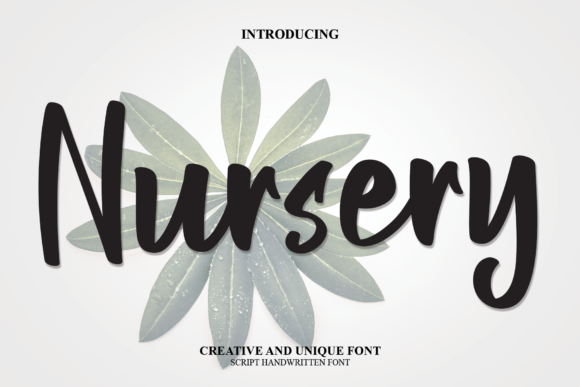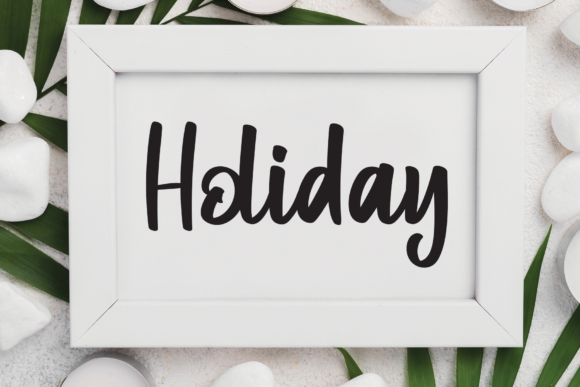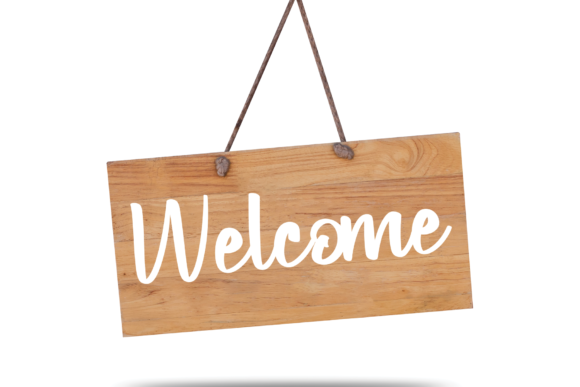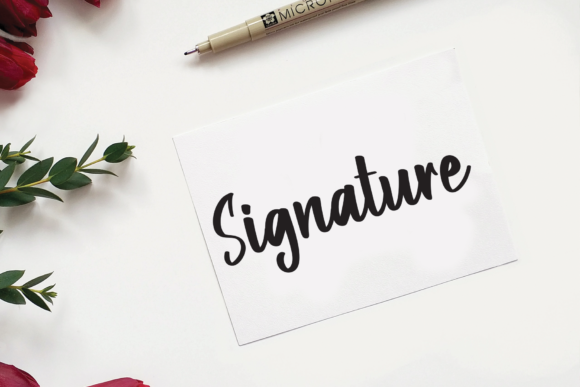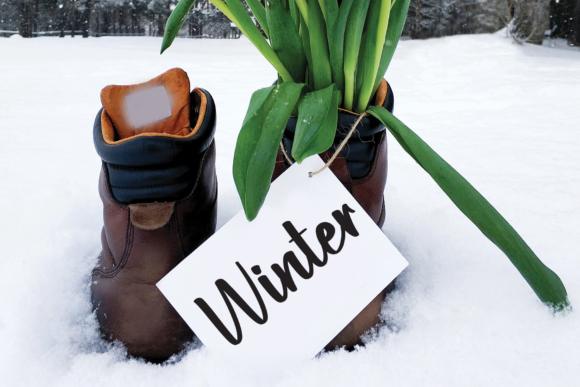
Nursery Font
About Nursery Font
Presenting a delightful and bold handwritten font, characterized by its sweet charm and distinctive curves in every letter. This font is not only visually appealing but also incorporates PUA coding, providing users with easy access to a plethora of glyphs and graceful sweeps for seamless customization.
The inherent sweetness and boldness of this handwritten font make it a perfect choice for a variety of creative projects. Whether you’re crafting eye-catching headlines, designing product labels, or enhancing your social media presence, the beautiful curves in each letter add a touch of personality and flair.
An outstanding feature of this font is its PUA coding, ensuring a user-friendly experience for effortless exploration of its extensive character set. With easy access to all the glyphs and sweeps, designers of any skill level can infuse their projects with unique and personalized touches, unleashing creativity with convenience.
The beautiful curves present in each letter contribute to the font’s overall appeal, making it a versatile option for a range of design applications. Whether incorporated into logos, advertisements, or packaging, the handwritten script imparts a sense of authenticity and charm, elevating the visual impact of the text.
This font’s combination of sweetness and boldness makes it particularly well-suited for creating standout designs. From invitations to branding and beyond, its expressive nature adds character and distinction to your projects. The harmonious balance between sweetness and boldness ensures that this font stands out in various creative contexts.
In summary, this sweet and bold handwritten font, with its beautiful curves and PUA coding, offers a perfect blend of visual appeal and functionality. It invites designers to infuse their projects with creativity and individuality, making it an excellent choice for those seeking a versatile and expressive typographic solution.